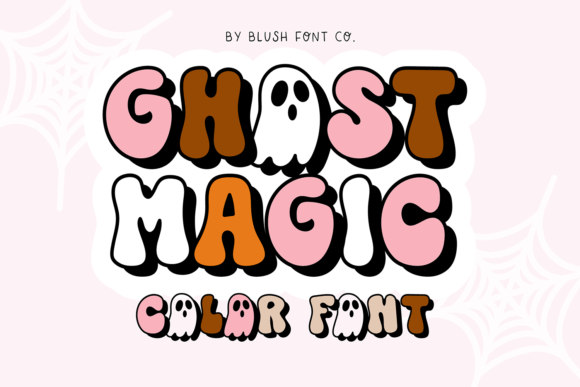
Introducing Ghost Magic Color Font, a captivating and vibrant addition to your font collection! Created by blushfontco, this cute and colorful display font is designed to bring out the playfulness and authenticity in your designs, making it the best choice for any children's activity or school project.
With its chunky lettered style, Ghost Magic Color Font brings life to your designs in an instant. Whether you're creating Halloween signs, birthday invitations, or crafting educational materials, this font will make your projects stand out from the crowd.
The magic of Ghost Magic Color Font lies in its ability to evoke emotions and capture attention. Its vibrant and eye-catching appeal instantly grabs the viewer's gaze, leaving a lasting impression. Imagine the excitement and joy it will bring to children as they see their names or favorite phrases written in these playful letters.
Not only does Ghost Magic Color Font add a touch of fun to your designs, but it also offers endless versatility. Its wide range of colors allows you to experiment and create captivating compositions that will leave your audience mesmerized. Let your imagination run wild as you mix and match different shades to create stunning visuals that truly reflect the essence of your project.
But that's not all! Ghost Magic Color Font is also a powerful tool for marketers and business owners. By incorporating this font into your branding materials, you can captivate your target audience and leave a lasting impression. Whether it's for social media graphics, website banners, or product packaging, this font will help you create a memorable and eye-catching brand presence.